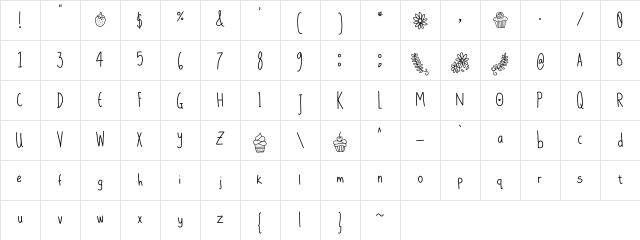
Complete <Daisy's-Delights> Medium glyph index. Displaying only characters natively supported by <Daisy's-Delights> Medium font.
<Daisy's-Delights> is a composed and adaptable typeface that performs quietly and consistently across a wide range of design contexts. Its slender proportions lend an understated elegance to any composition.